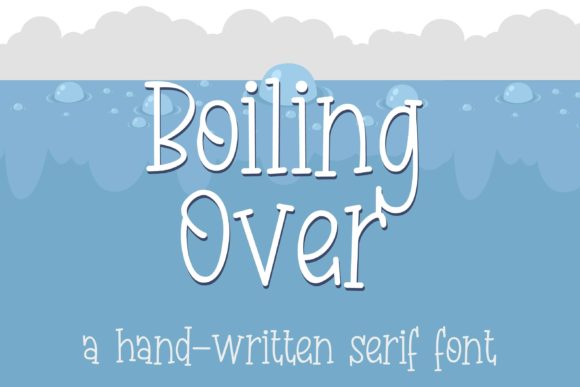
The Boiling Duo Font: A Playful Pair to Elevate Your Designs
I’ll never forget the time I was working on a whimsical craft project for a client, pouring my heart and soul into bringing their vision to life. But as I sat in front of my computer, staring at the blank canvas, I realized I was stuck – I just couldn’t find the right font to match the playful, magical feel my client was looking for. That was until I stumbled upon the Boiling Duo font, a game-changing pair of scripts that instantly elevated my design and left me wondering how I ever managed without them.
So, what makes the Boiling Duo font so special? Here are a few things that have won me over:
- ✨ Unique and playful vibe: The Boiling Duo fonts have a quirky, magical feel that’s perfect for designs that need a bit of personality.
- ✅ Versatility: Whether you’re working on a craft project, a branding campaign, or just a fun DIY project, these fonts can adapt to any style or theme.
- 💫 OpenType features: With access to a range of glyphs and stylistic alternates, you can customize your text to fit your design vision.
- 🤔 Legibility at small sizes: While the Boiling Duo fonts are stunning at larger sizes, they can be a bit tricky to read when scaled down.
- ⚠️ Limited use in formal designs: These fonts are playful and whimsical, which means they might not be the best fit for more formal or corporate designs.
The Story Behind Boiling Duo
While the origins of the Boiling Duo font are shrouded in mystery, it’s easy to imagine a designer pouring their heart and soul into creating a font that would bring a bit of magic to the world of design. Perhaps they were inspired by the quirky, offbeat charm of handmade crafts or the whimsical world of children’s illustrations. Whatever the inspiration, the result is a font that’s equal parts playful, elegant, and enchanting.
Q: What makes the Boiling Duo font so special?
A: The Boiling Duo font is special because of its unique, playful vibe and versatility – it’s perfect for a wide range of design projects, from crafts to branding campaigns.
Q: Can I combine the Boiling Duo font with other fonts?
A: Absolutely! The Boiling Duo font pairs well with a range of other fonts, so feel free to experiment and find the perfect combination for your design.